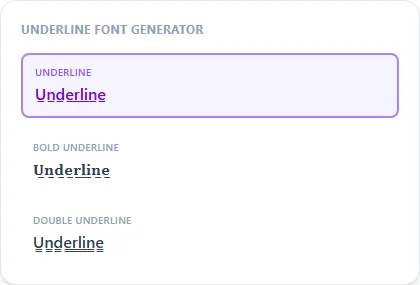
Underline Text Generator
This generator underlines your text using a real Unicode combining character rather than HTML's <u> tag, so the underline survives copy-paste into places that strip formatting, like Instagram bios and usernames.
Plain Underline works on its own; Bold Underline, Romantic Underline (script), and Gothic Underline (blackletter) combine the same underline mark with a different base letter style for more emphasis or a different look.
Underline Text Generator style examples: Underline, Bold Underline, Double Underline, rendered on the word "Underline"
A combining mark, not an HTML tag
Normal underline formatting (Ctrl+U, or an HTML <u> tag) is a style attribute layered on top of plain letters. Strip the formatting and the underline disappears. This generator instead inserts a real Unicode combining low line character (U+0332) after each letter, a genuinely different character sequence, not a visual effect. Because there's no formatting to lose, the underline survives copy-paste into Instagram bios, Discord names, and anywhere else plain text goes.
Plain, bold, or double underline
Plain Underline works with any text and reads cleanly at small sizes. Double Underline uses a heavier combining mark for more emphasis. Bold Underline pairs the effect with bold Unicode letters for a stronger, more attention-grabbing line.
Is this a real underline, or a formatting trick?
It's a real Unicode combining character (U+0332, 'combining low line') attached to each letter — not HTML or CSS formatting, which is exactly why it survives copy-paste into places that strip formatting.
Does underlined text work on Instagram, TikTok, and Discord?
Yes, it's plain Unicode text, so it pastes the same way into any bio, caption, username, or comment field on any platform.
Why does the underline sometimes look uneven or gappy?
Combining marks are positioned by whatever font renders them, and spacing can vary slightly between letters depending on the device or app — this is a font-rendering quirk shared by every underline text generator, not something specific to this tool.
What's the difference between Underline and Double Underline?
Double Underline uses a heavier combining mark for stronger emphasis; Underline is the standard single-line version.
Can I combine underline with a different letter style, like script or gothic?
Yes, Romantic Underline (script) and Gothic Underline (blackletter) are pre-built combinations; Bold Underline pairs it with bold letters for extra weight.